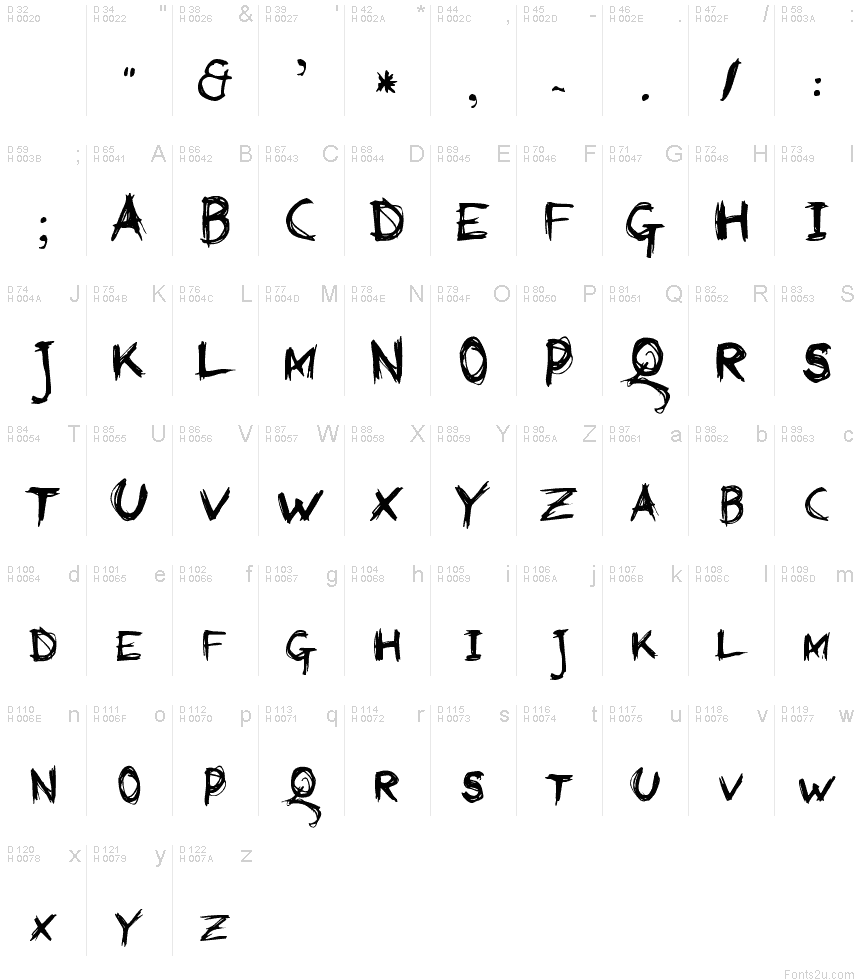
Red Pen Society is a free trash-handwritten display font with the look of a marker scrawled hard and fast across a page. The letters feel agitated and improvised, with blunt strokes, dangling drips, and restless pen loops that keep repeating so the whole alphabet reads like graffiti, notebook vandalism, or a punk flyer title.
It fits zines, album sleeves, poster headlines, skate graphics, and horror-comedy title cards where that messy, crossed-out energy helps the words carry more attitude than polish. As a free font, it also makes sense for sharp cover lines, quick monograms, and short branding moments that need to feel raw, homemade, and a little unruly.